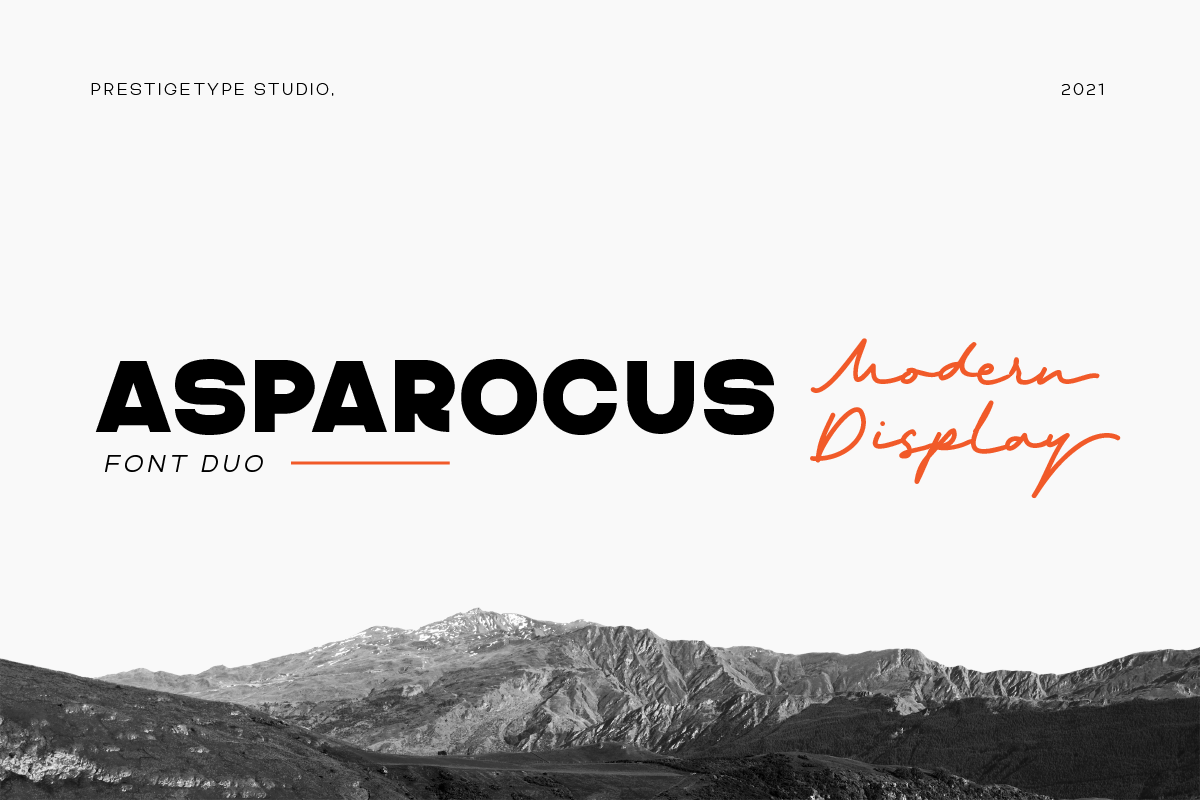
Asparocus Modern Font Duo
Asparocus is a modern and clean font duo that includes all caps sans serif and script font style. The Sans serif style comes in 16 weights with italics + variable fonts.
Designed with a modern minimalist mind, Asparocus is suited for display, advertising, web design, headline, branding, logo, text, business card, and many editorial design purposes.
- All caps sans serif and script font style